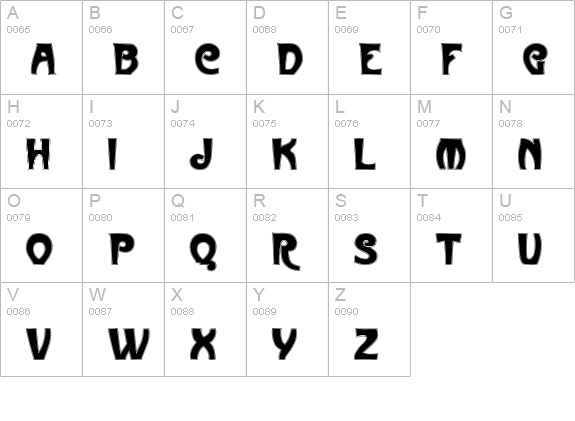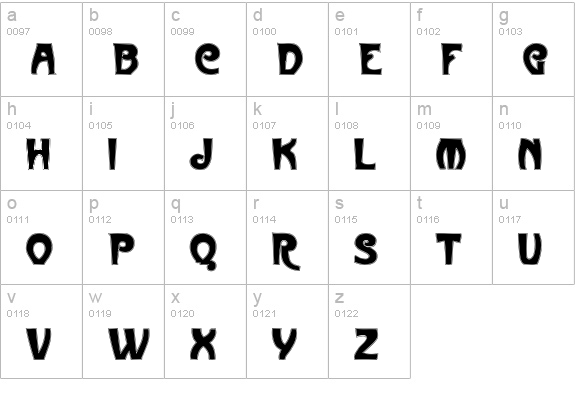
MetropolitainContour Font Details
MetropolitainContour is a modern and stylish font that exudes sophistication and elegance. Its clean lines and sleek curves make it perfect for a wide range of design projects, from logos to branding to advertising. The unique contour style adds a touch of creativity and flair, making your text stand out from the crowd. What sets MetropolitainContour apart is not only its striking appearance but also the fact that it is available for free download at FontsMarket.com. This means you can access this high-quality font without any cost, allowing you to elevate your designs without breaking the bank. Whether you're working on a professional project or a personal endeavor, MetropolitainContour is sure to impress with its versatility and visual impact. Download it today and unleash your creativity with this stunning font.